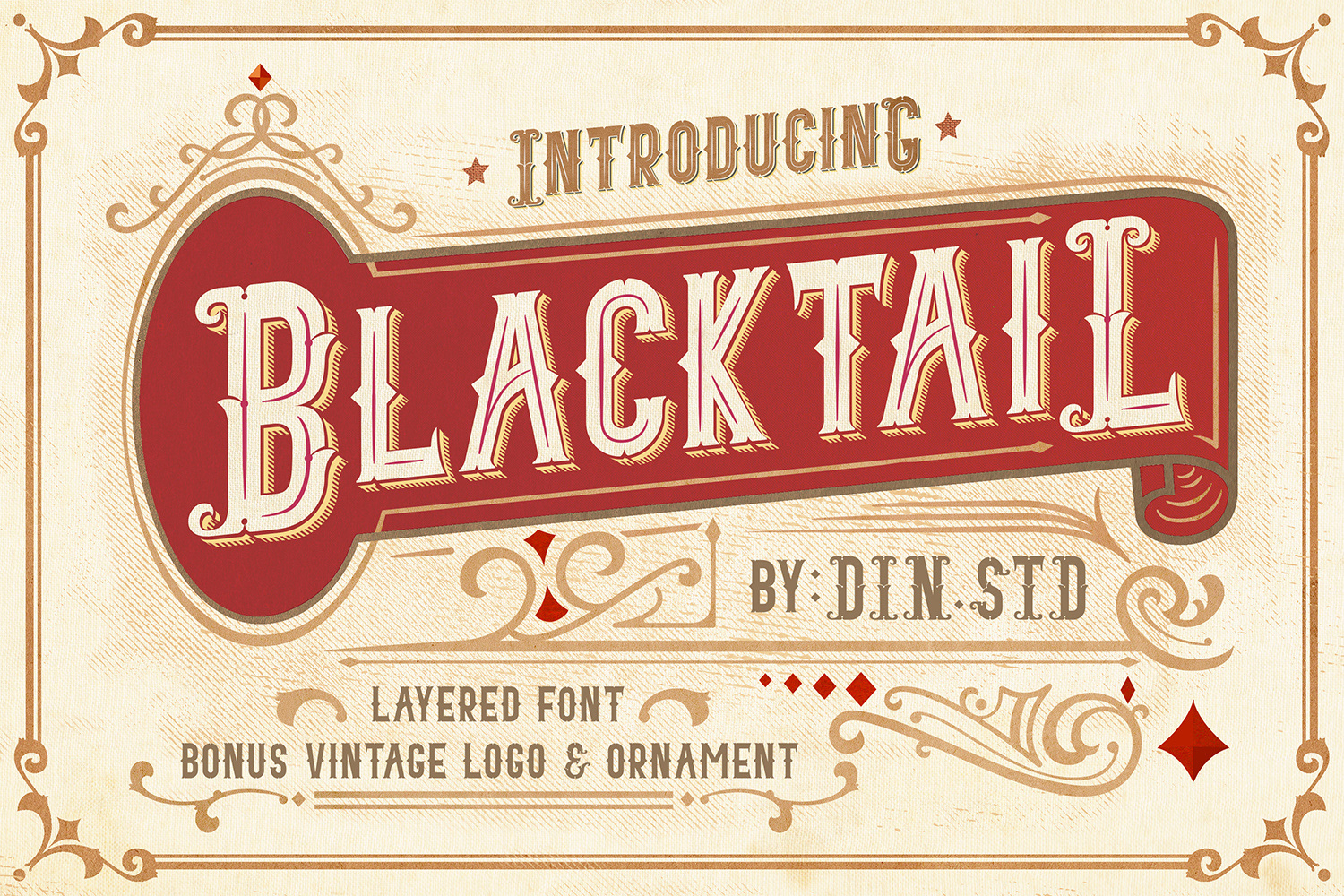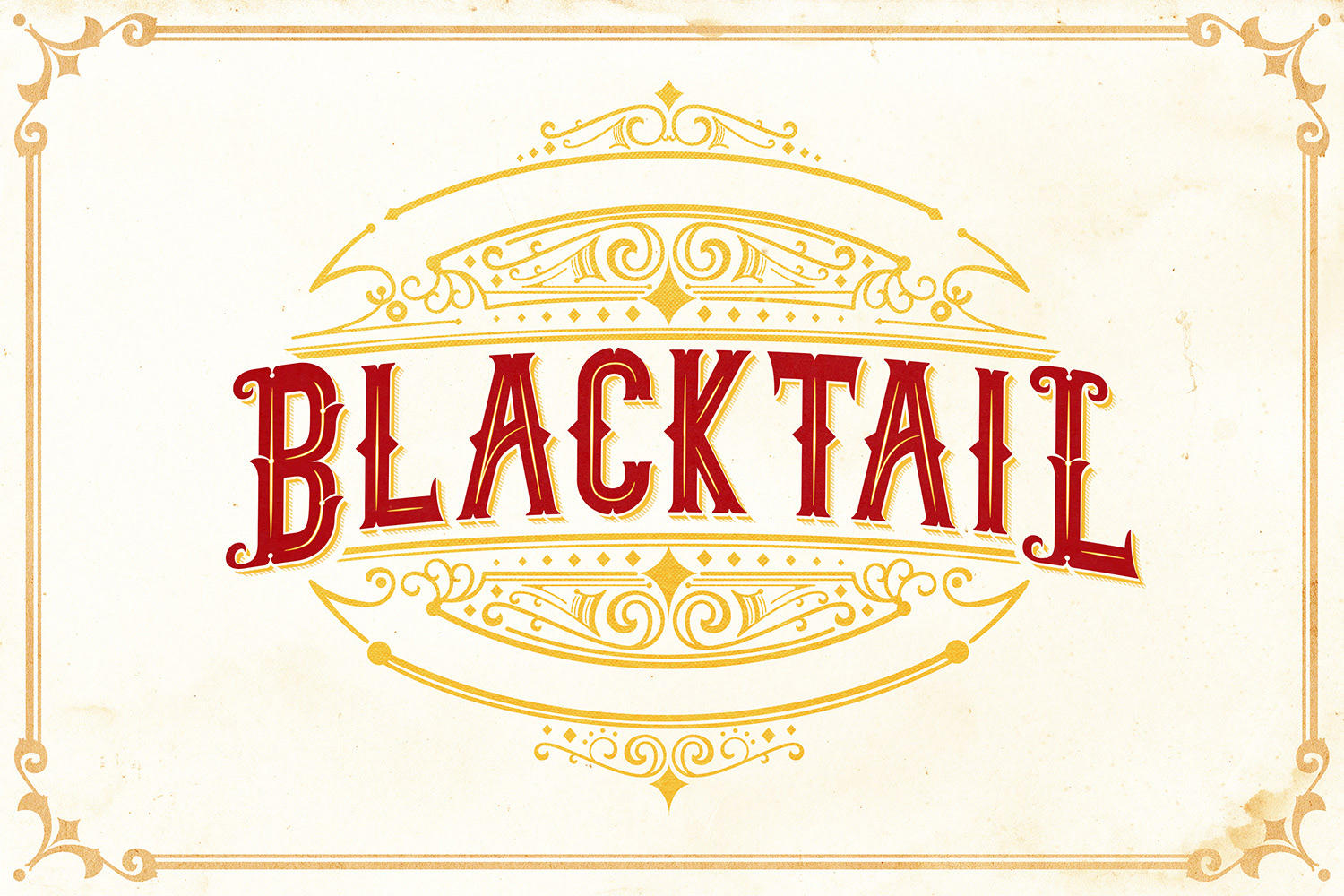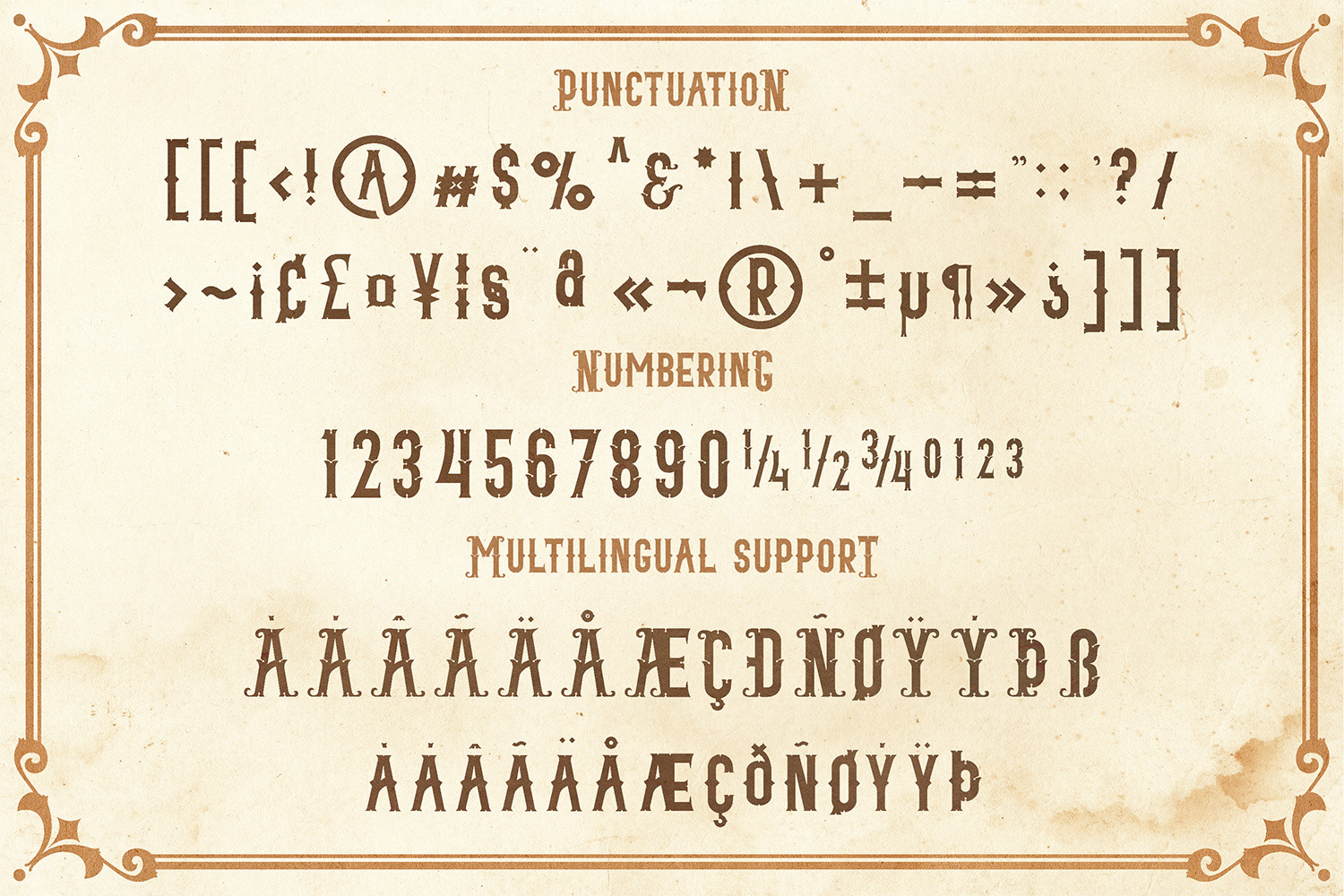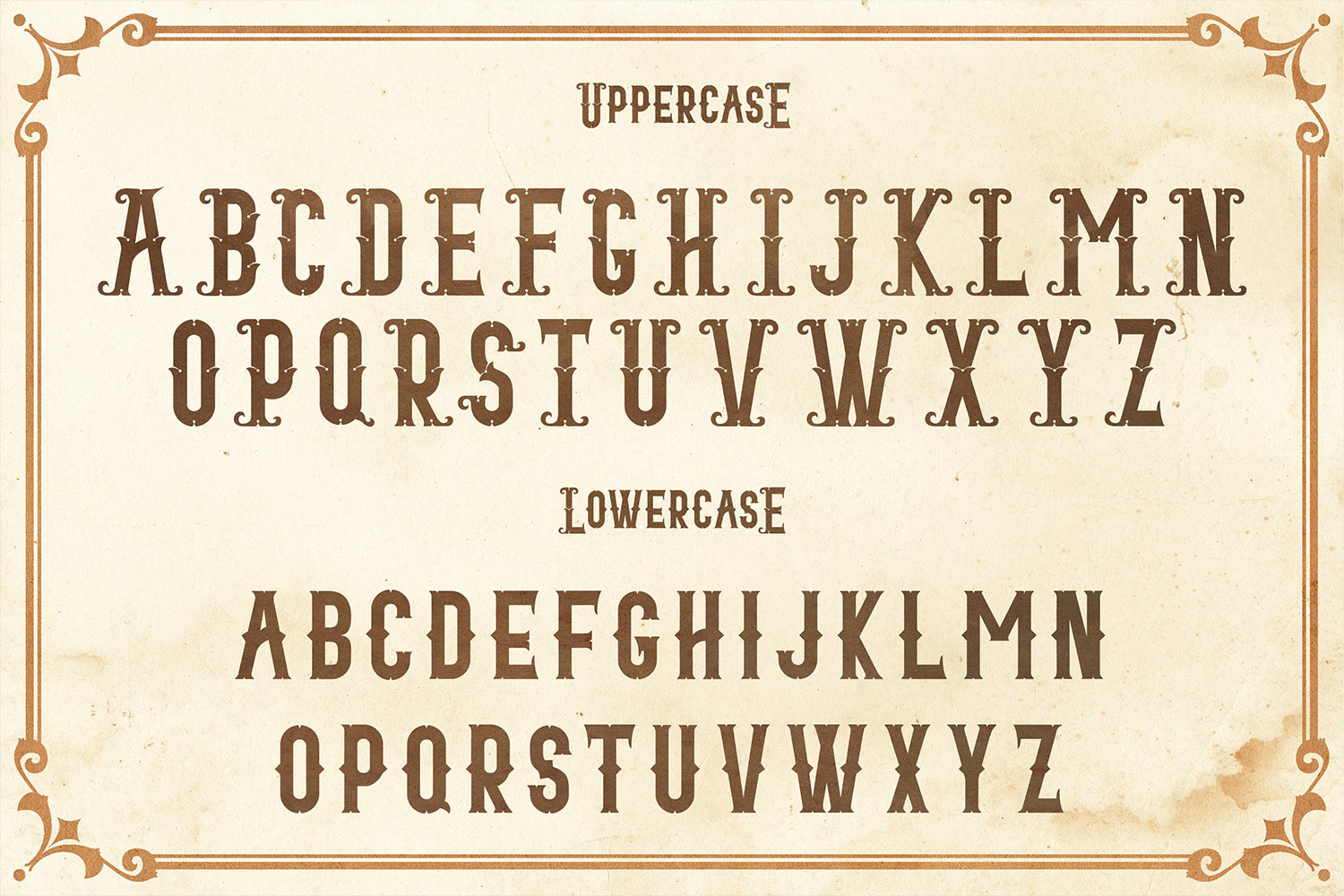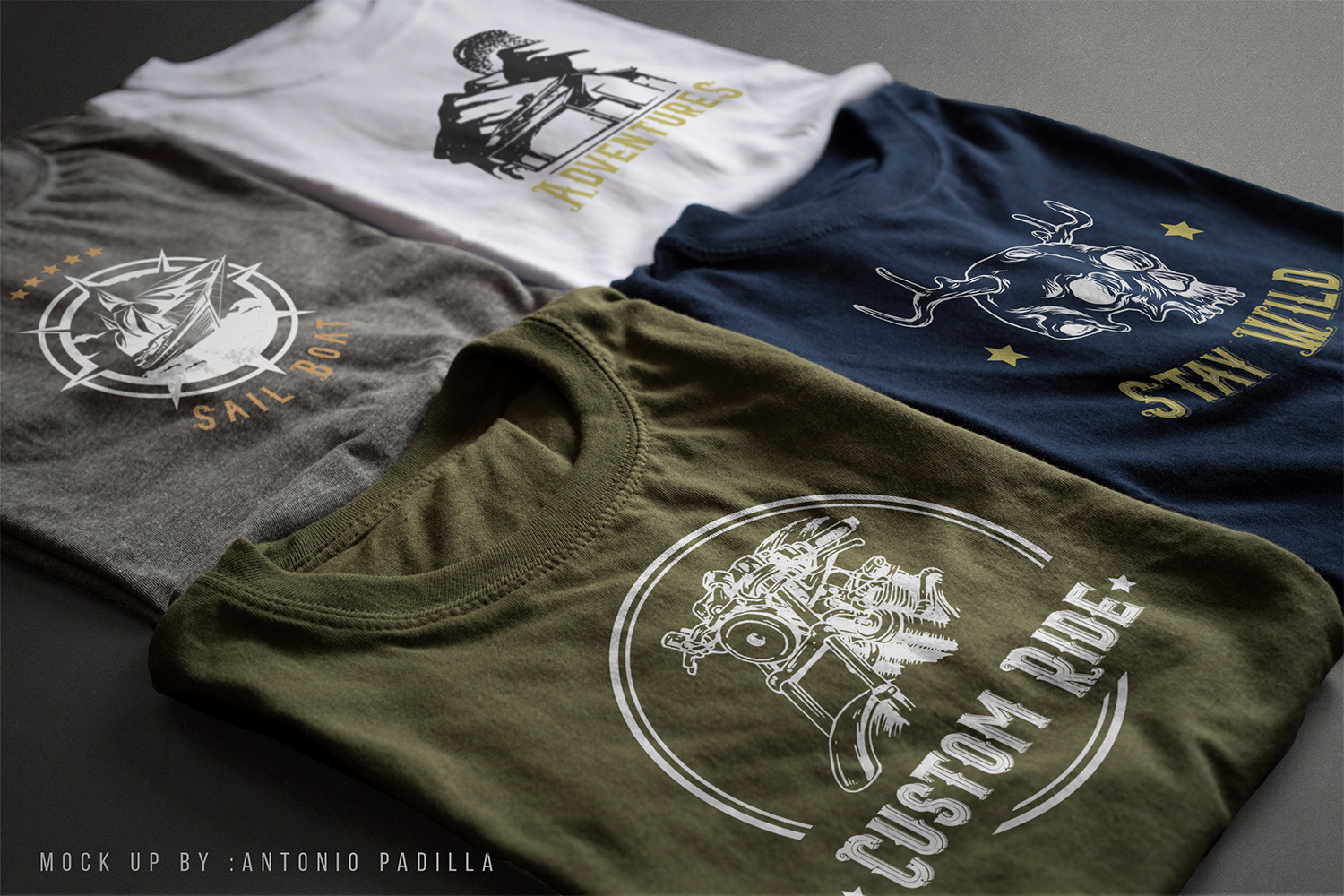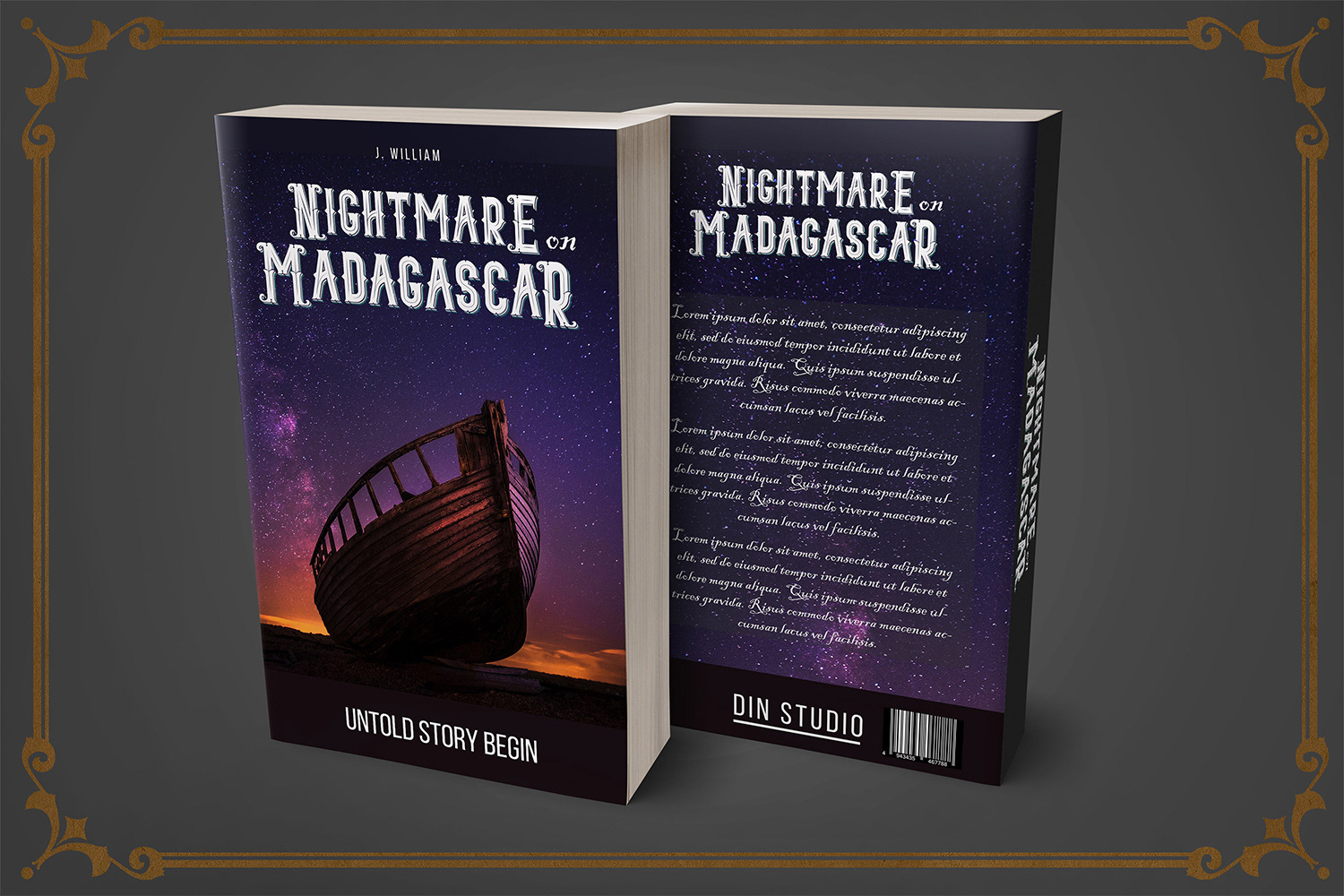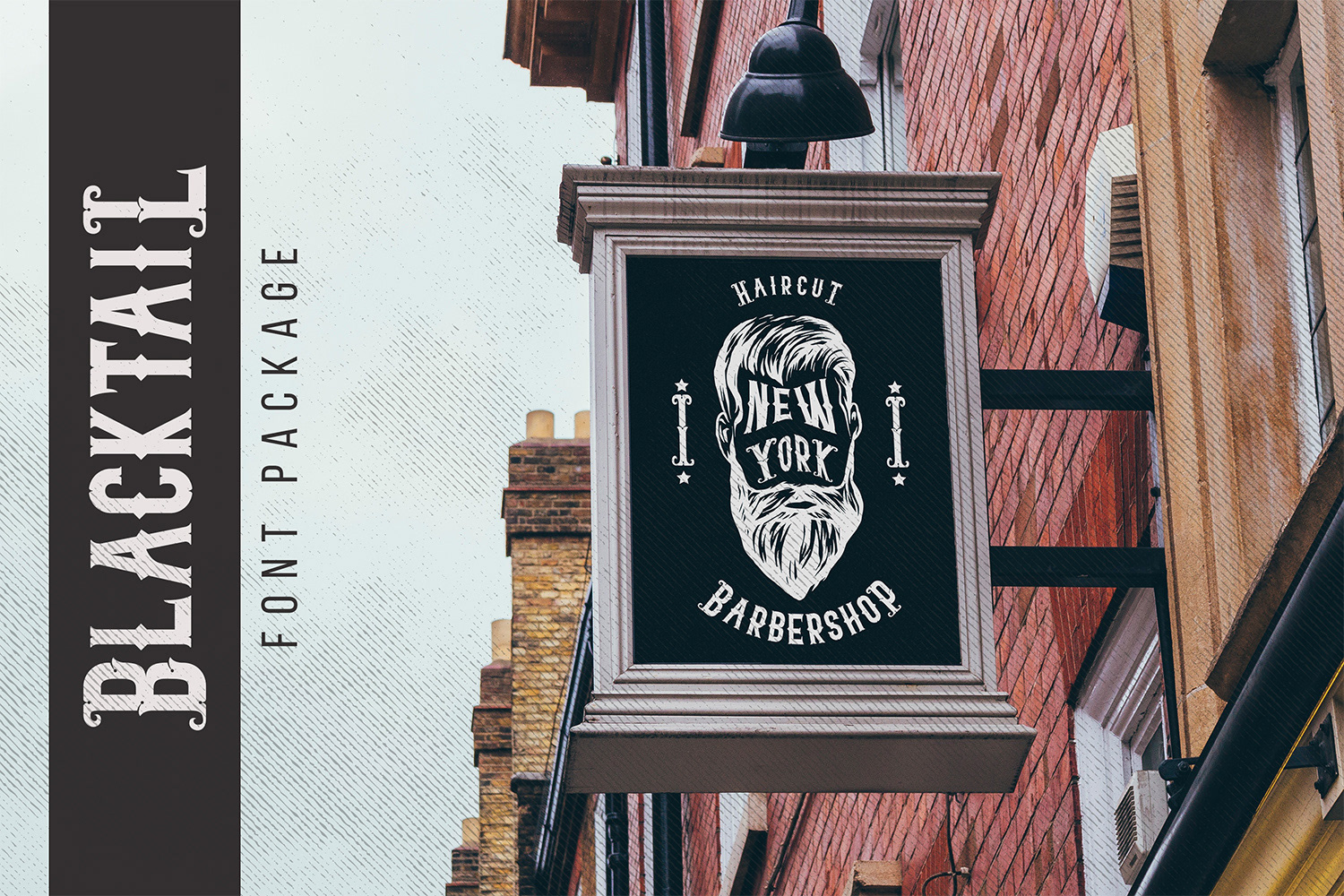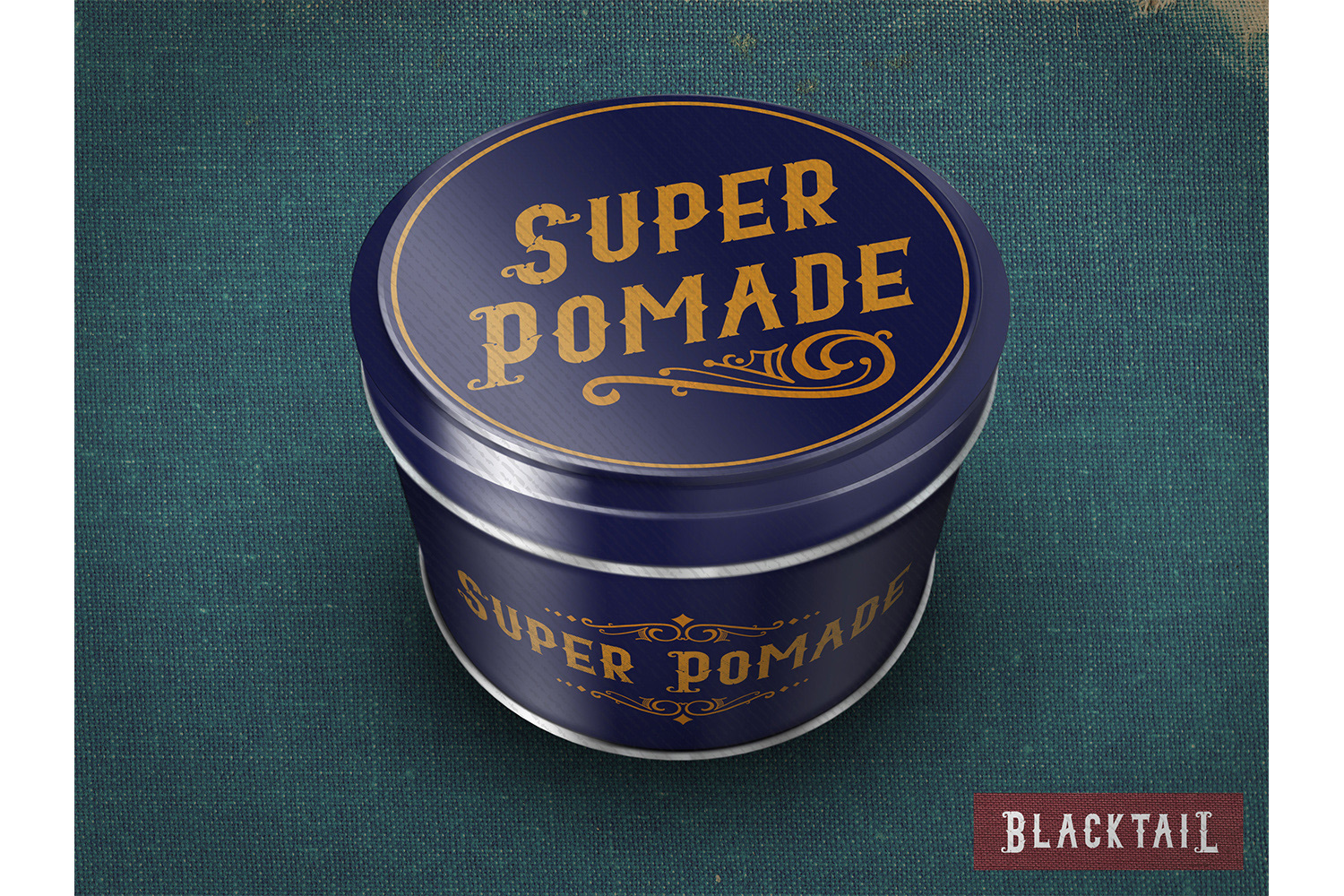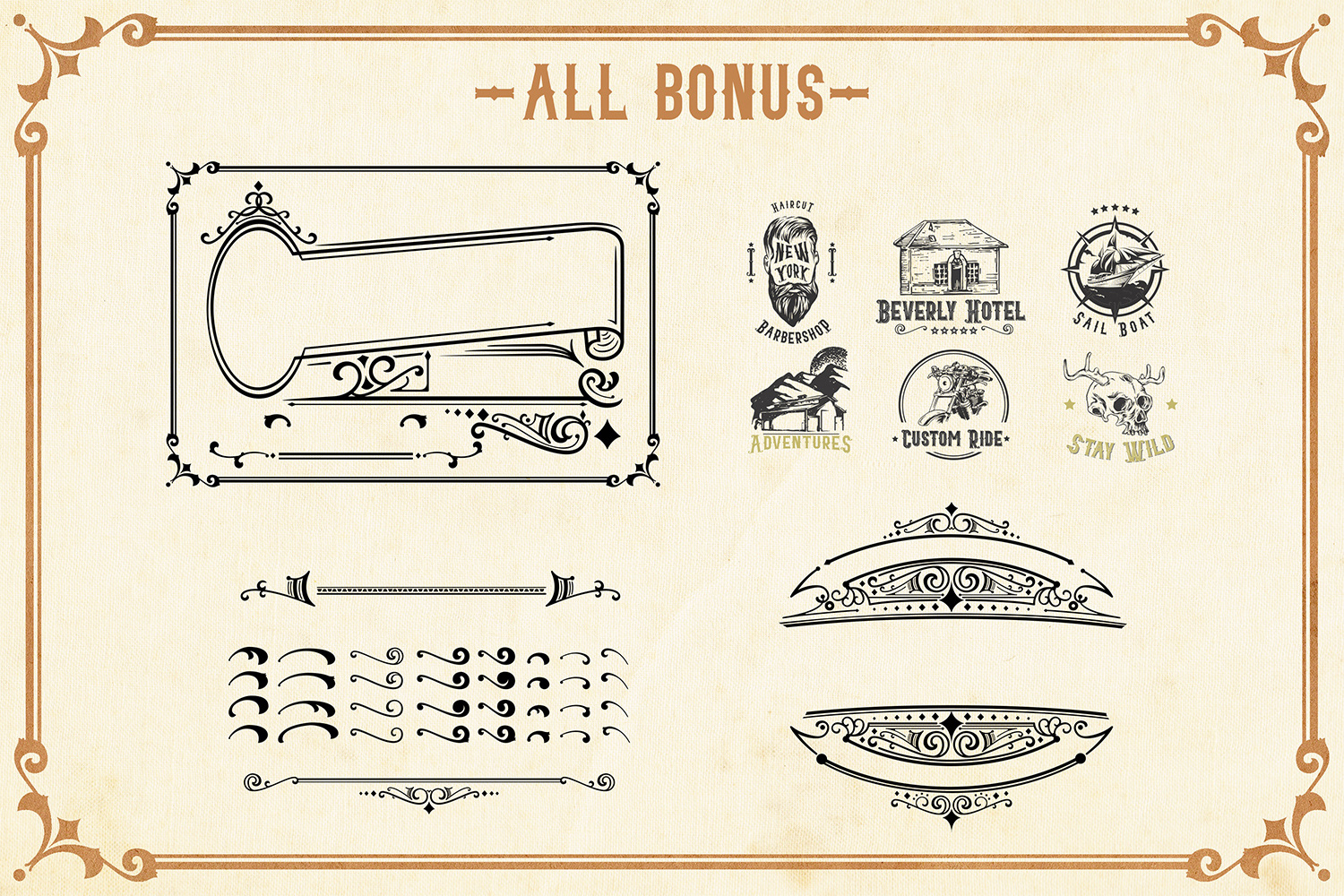
Introducing Blacktail Font. Blacktail font comes with vintage and layered style. It's consist of four layer font and i think it can make your project more powerfull. Blacktail font is very suitable for your branding project, tshirt printing, book cover, film title and and many more that need vintage taste :).